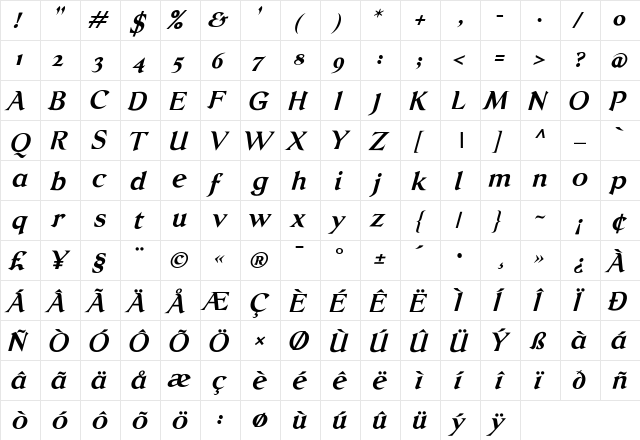
Dilys Bold Italic
Bold Italic · TypeFaith*fonts РLeon Hulst Leon Hulst ·
Year 1990
Foundry TypeFaith*fonts РLeon Hulst
DesignerLeon Hulst
Year1990
Design Context for Dilys Typeface
Dilys is a composed and adaptable typeface that performs quietly and consistently across a wide range of design contexts. The dynamic lean of this cut emphasises speed and emphasis in any layout. Its bold stroke weight gives it real presence on the page.
Pro Tip: Try Dilys for annotation and caption copy alongside an upright companion — the contrast in angle creates a dynamic but ordered typographic system.